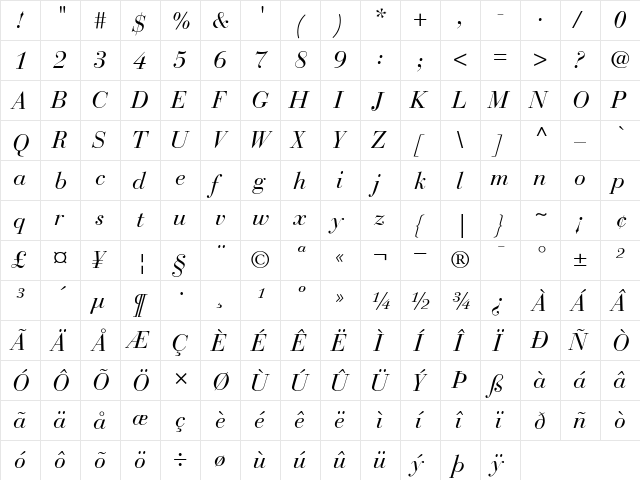
BauerBodoni RomanItalic
Design Context for BauerBodoni Typeface
BauerBodoni offers clean, dependable letterforms without strong stylistic allegiance, making it a practical choice for designers who need flexibility. The dynamic lean of this cut emphasises speed and emphasis in any layout.
Pro Tip: Try BauerBodoni for annotation and caption copy alongside an upright companion — the contrast in angle creates a dynamic but ordered typographic system.